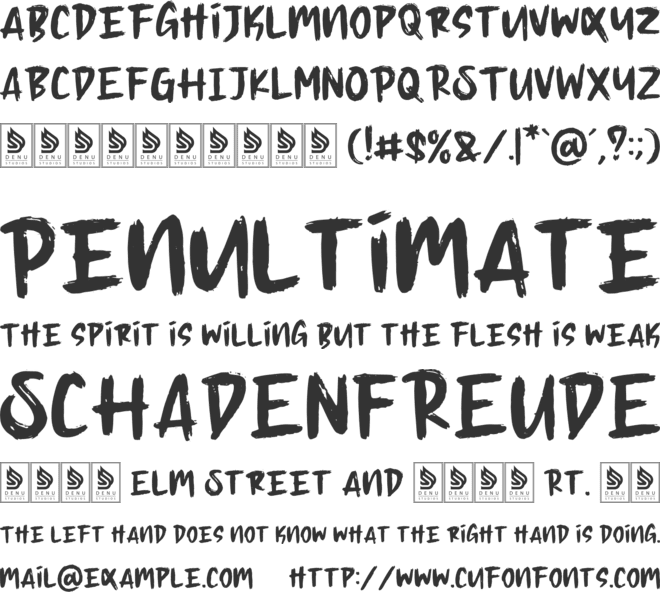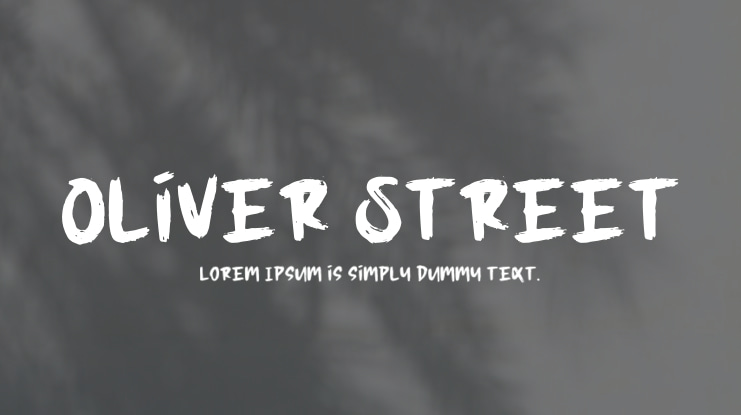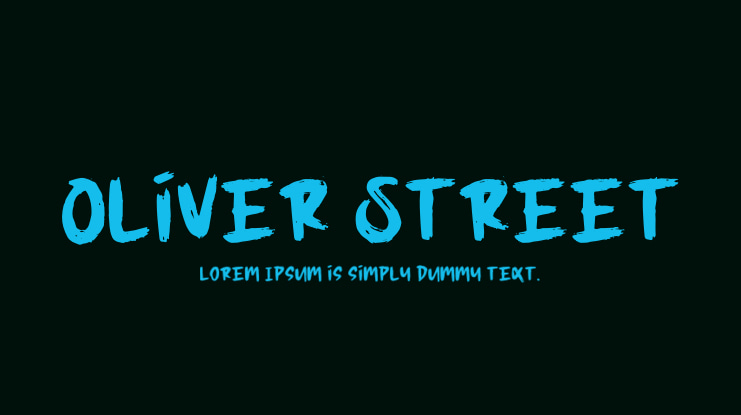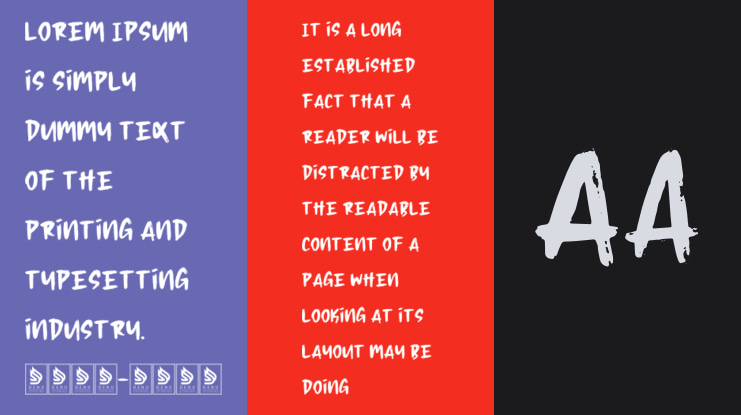
Oliver Street Font
Oliver Street | Hand Drawn Brush Font
This font is suitable for various projects such as:
• Logos
• Branding projects
• Homeware designs
• Product packaging
• Mugs
• Quotes
• Posters
• Shopping bags
• T-shirts
• Book covers
• Name cards
• Invitation cards
• Greeting cards
• Labels
• Photography
• Watermarks
• Special events
• And all your other lovely projects that need a Hand Drawn Brush Font taste